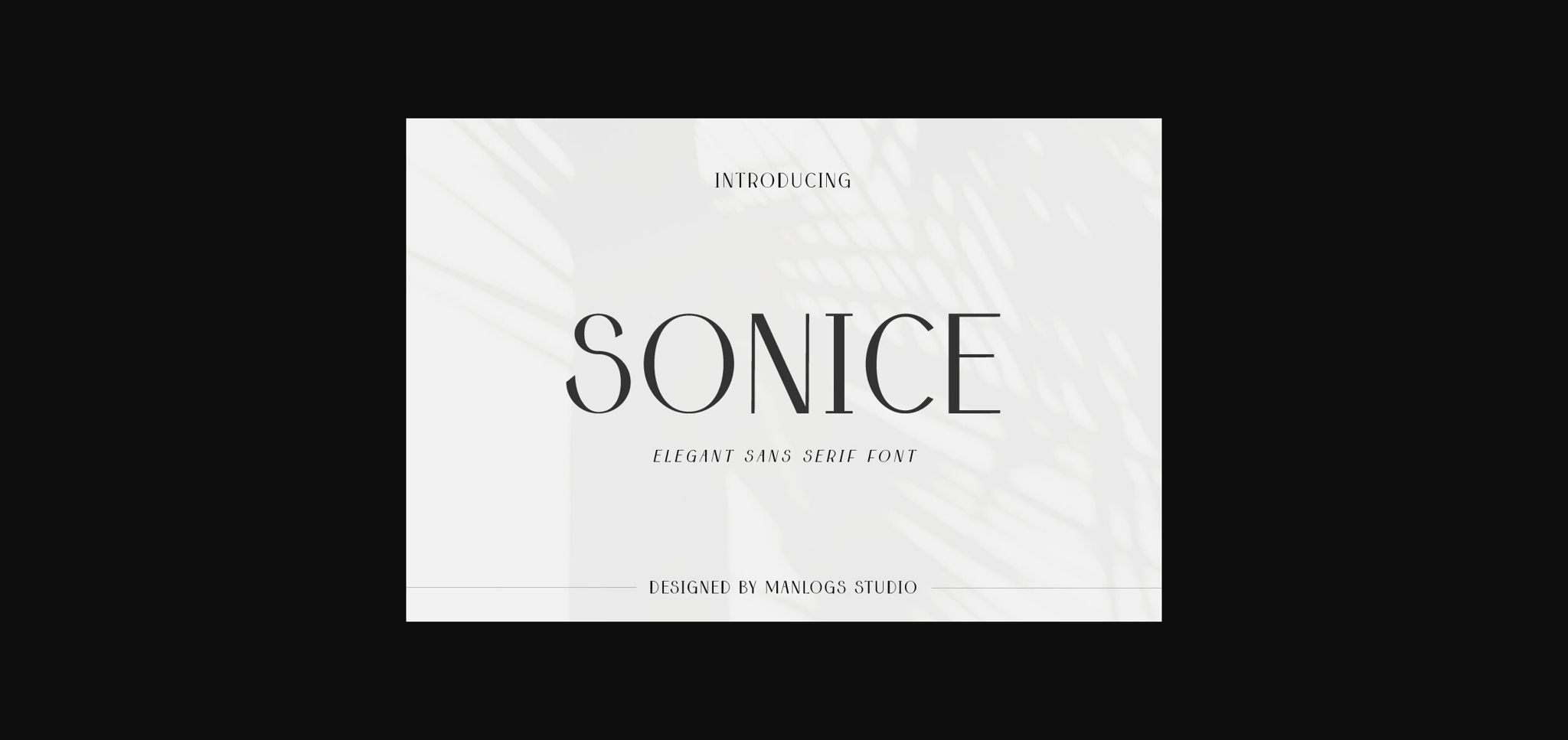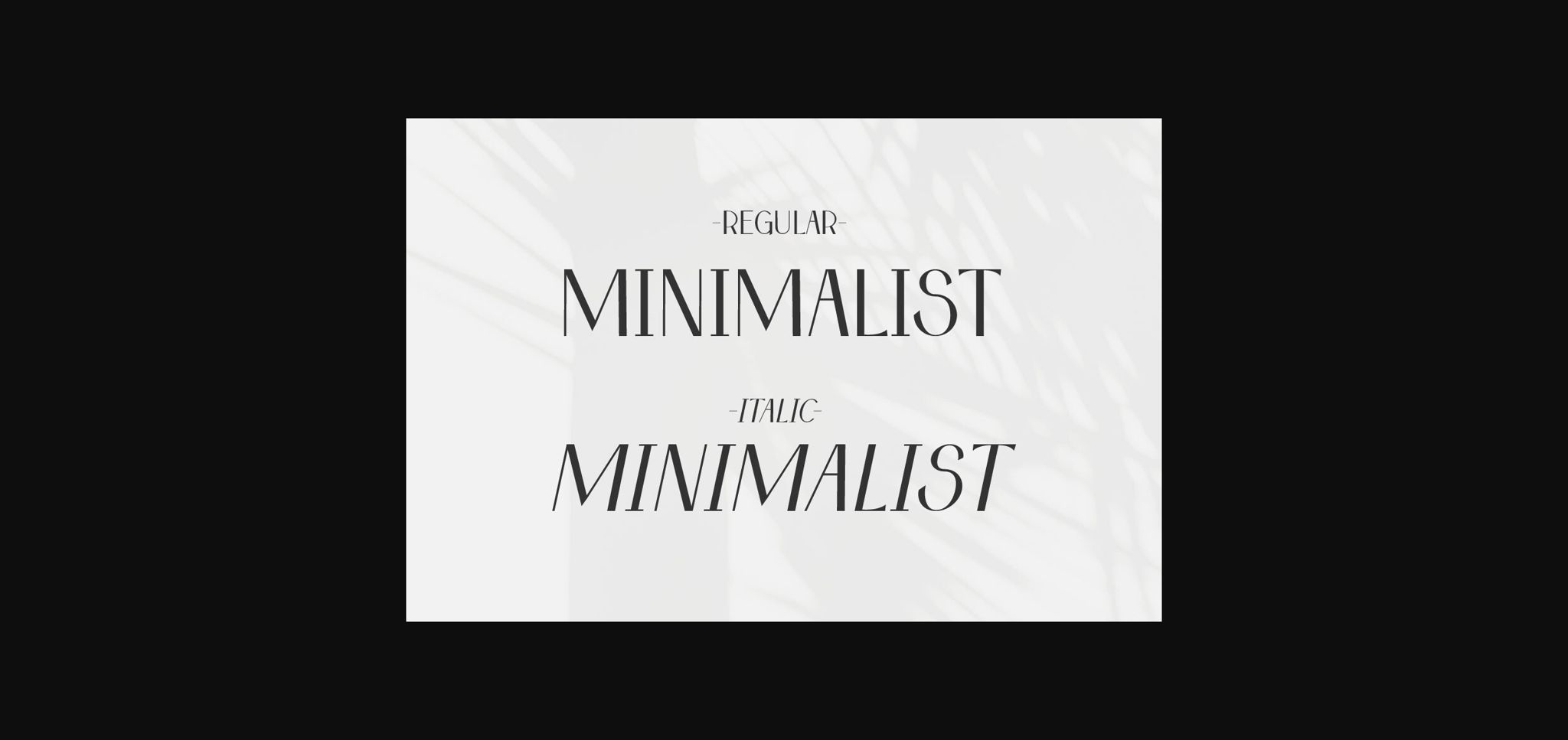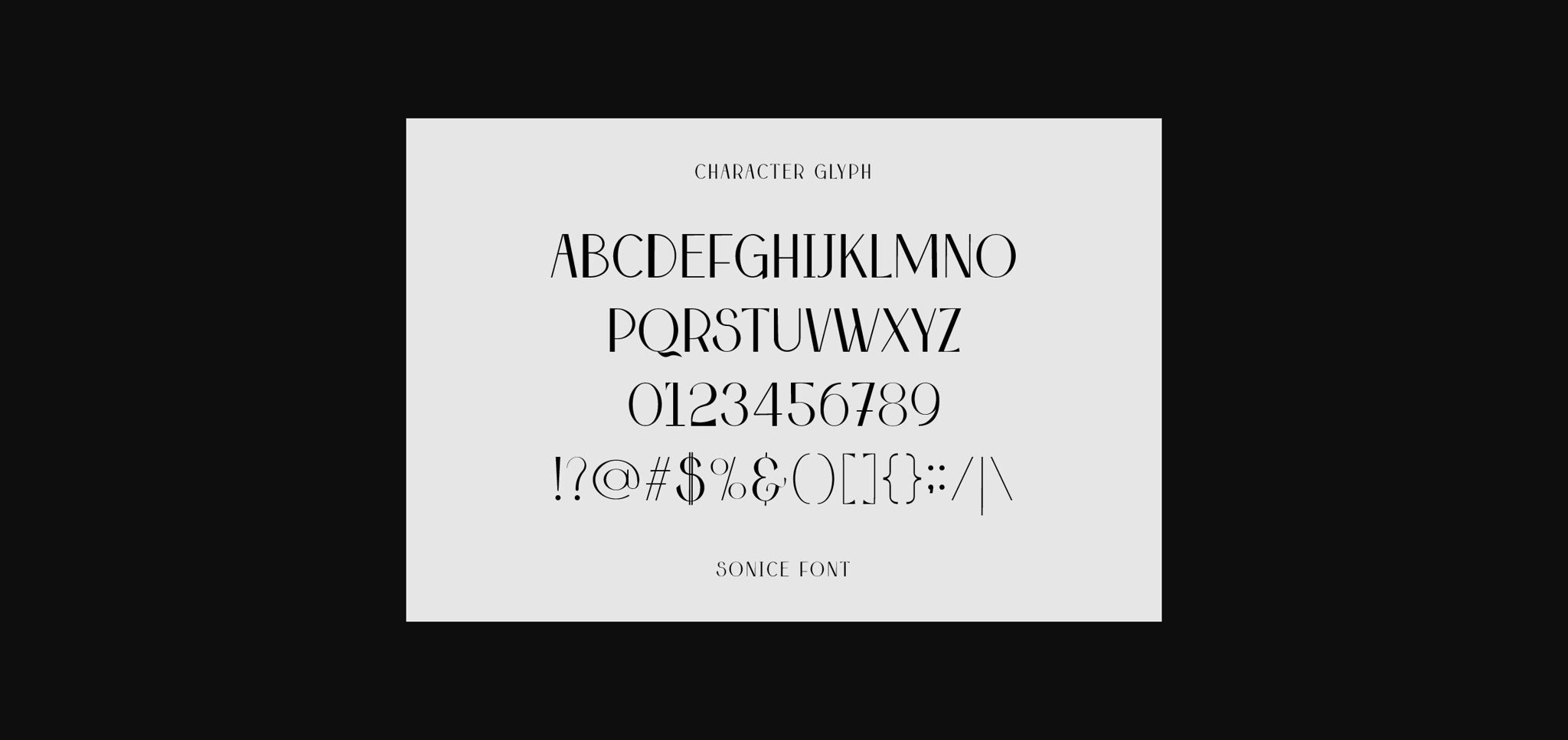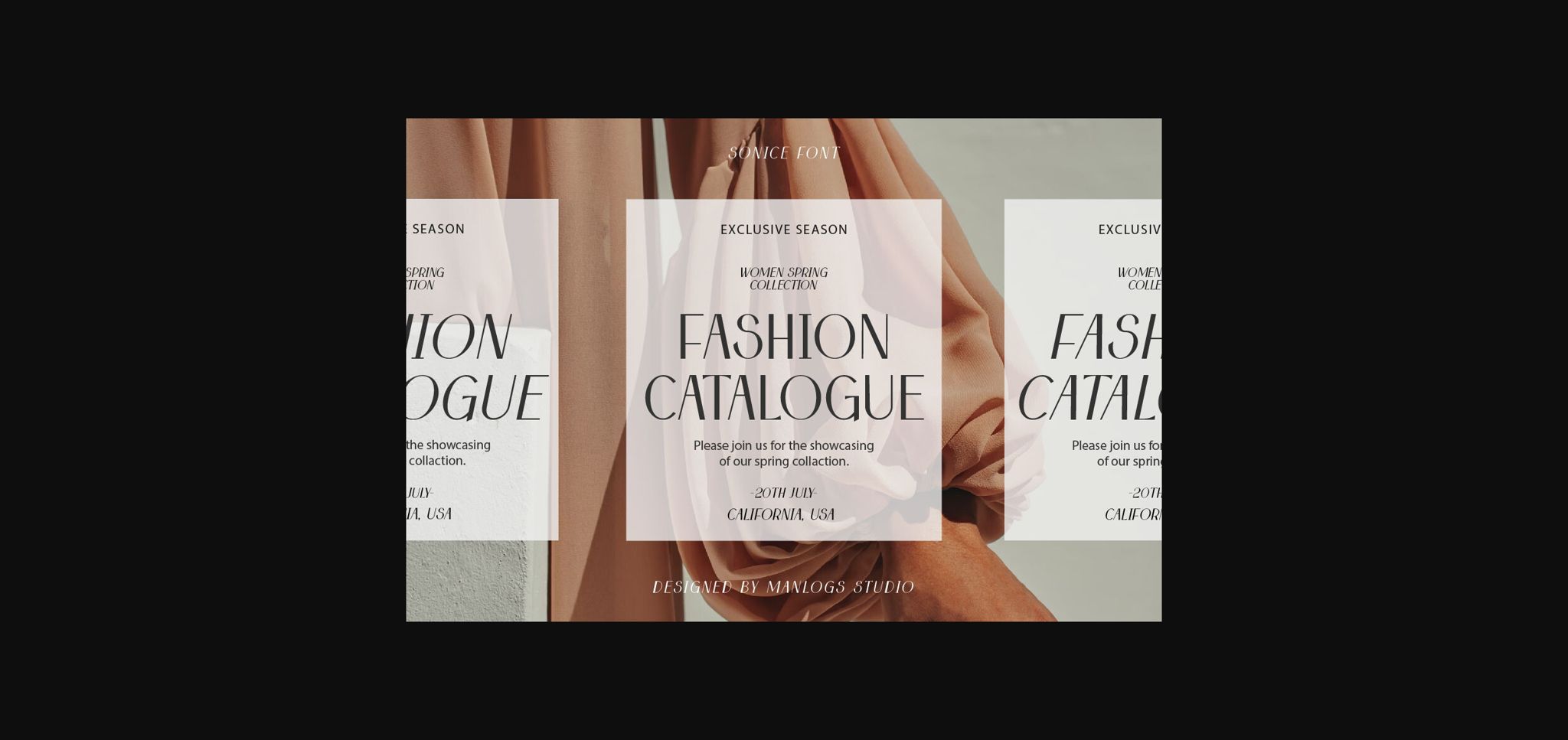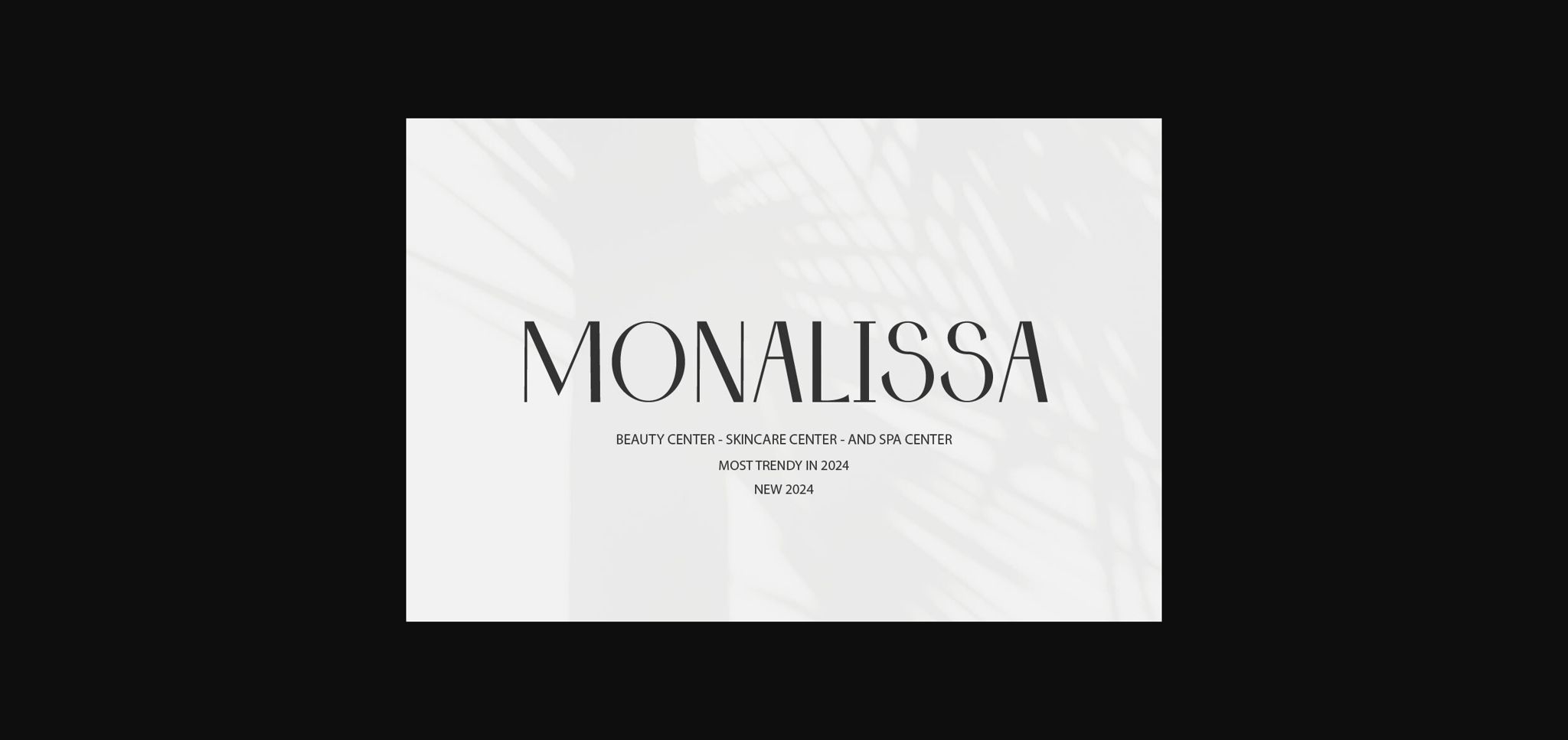
Sonice Font
About Sonice Font
Sonice is an elegant and modern sans serif font, presenting a classic and classy appearance. Not too smooth and not too thin, balanced and varied. This font is designed for fashion projects, magazine headers, logos, headlines, poster designs, skincare products, blogs, branding and much more!